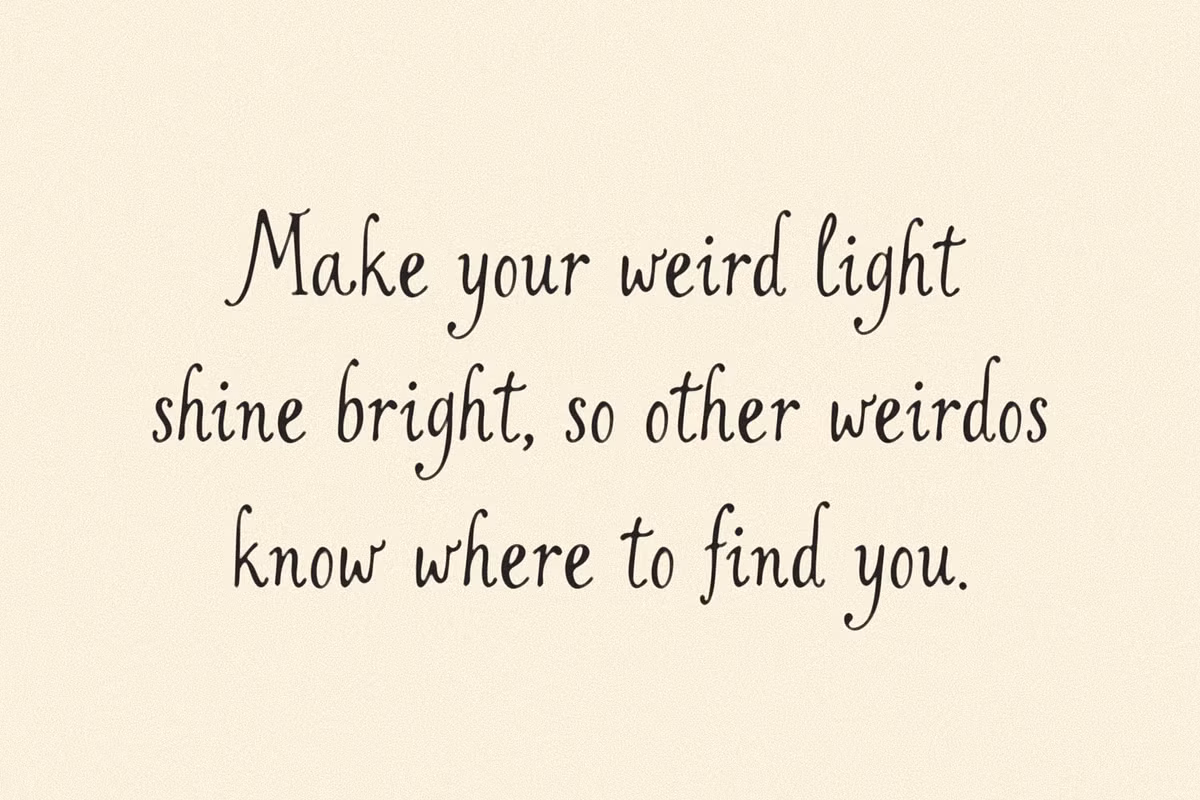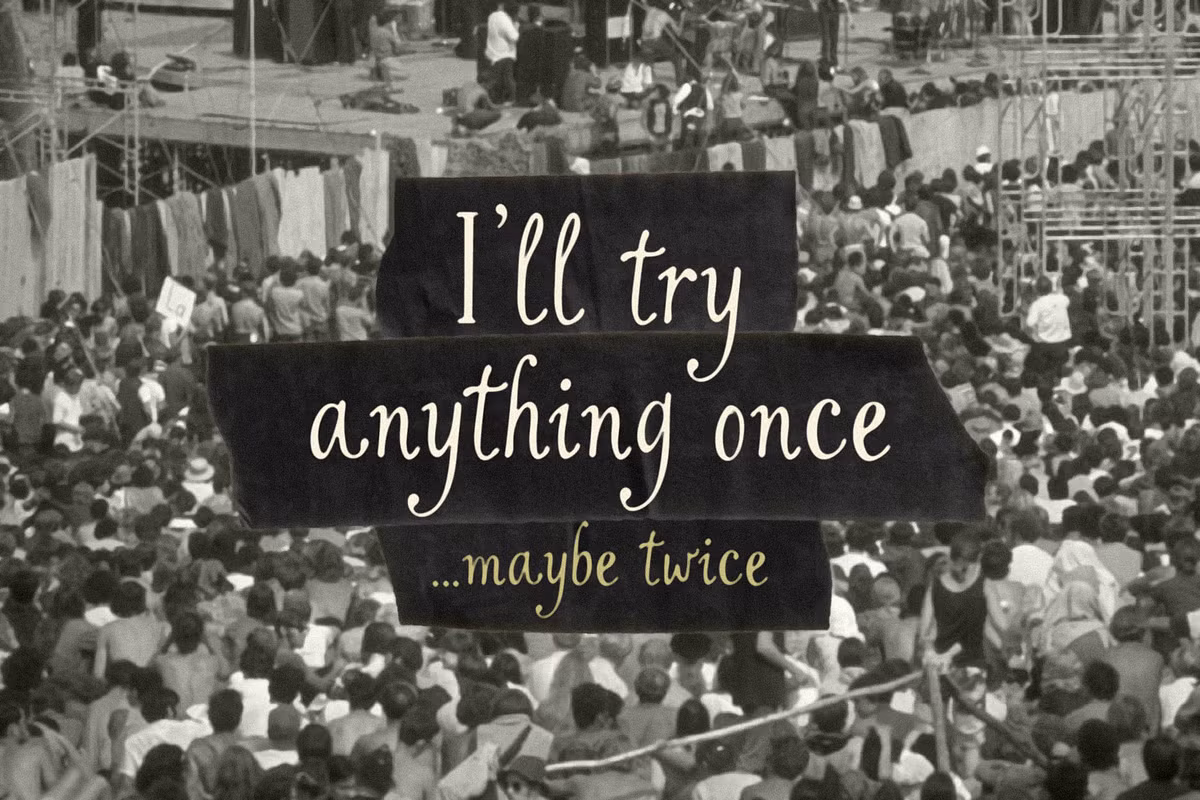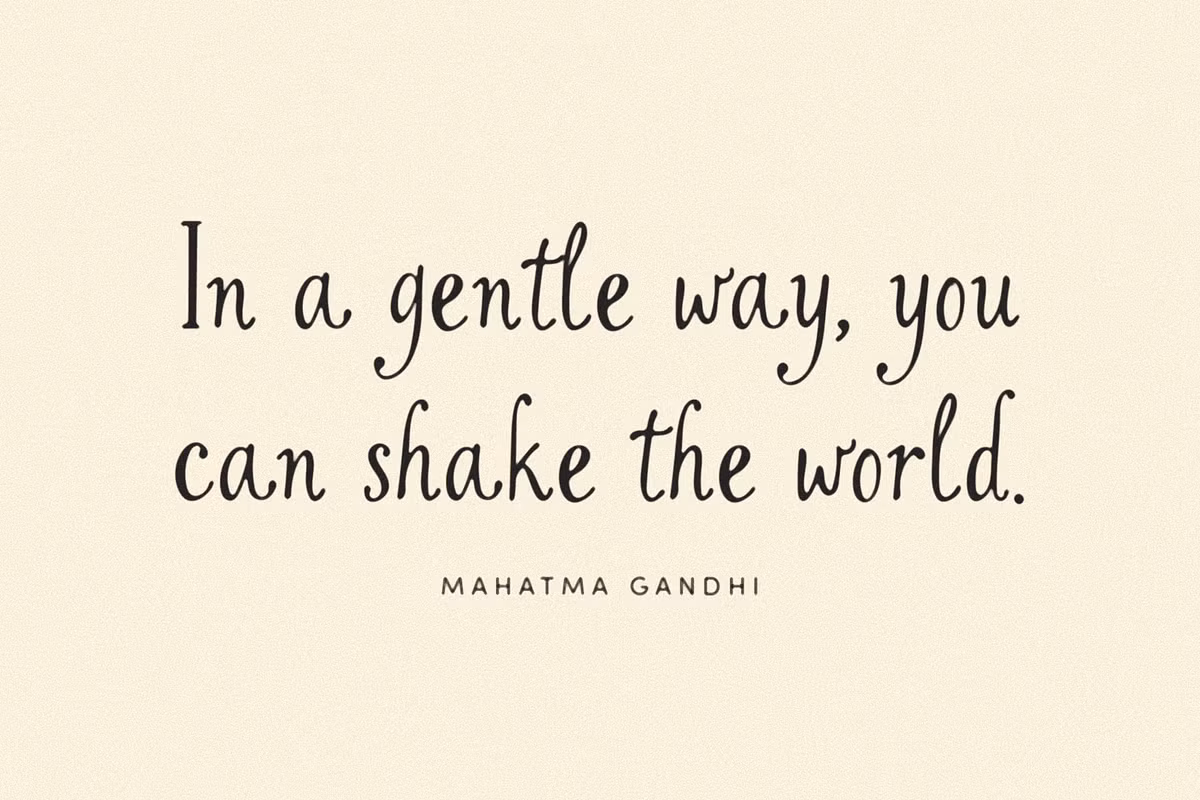
Westfalia: Whimsical Typeface for Creative Projects and Design
Introduction to Westfalia
Westfalia is a really cool font that’s all about being creative and having fun. It’s great for lots of different design projects. The people who made it, Bruised Goods, are from California and they got their ideas from all sorts of weird and wonderful things. What makes Westfalia special is its one-of-a-kind style and the fun characters it includes. If you want to add a bit of personality to your work, Westfalia is a fantastic choice. It’s perfect for anyone who wants to think outside the box and try something new.
With Westfalia, you can create designs that are really eye-catching and memorable. The team at Bruised Goods did a great job of making a font that’s both unique and easy to use. Whether you’re working on a big project or just something small, Westfalia can help you make it stand out.
Design Style of Westfalia
The Westfalia design style is really fun and artistic, with weird and wonderful shapes and lines that flow nicely. It’s a bit unconventional, which makes it perfect for designs that want to be different. So, if you’re making an album cover, an ad, or a logo, Westfalia’s playful vibe can add a sense of happiness and curiosity. Its quirky style can really make your design stand out and grab people’s attention.
With Westfalia, you can create something truly unique and eye-catching, whether you’re going for a fun and lively feel or a more subtle and intriguing one. Overall, Westfalia is a great choice for anyone who wants to add a bit of personality and whimsy to their design.
Westfalia has a lot to offer, especially when it comes to its glyphs. It’s got a huge range – 172 glyphs, to be exact. This includes all the usual stuff like uppercase and lowercase letters, numbers, symbols, and punctuation marks. Having so many options makes it easy for designers to get creative and make their layouts really pop. They can try out new things and move away from traditional typography, which is pretty exciting.
With Westfalia, the possibilities are endless, and designers can really push the limits of what’s possible with their designs. This font is really flexible, so it works well with lots of different styles – you can use it to create a retro feel or a modern look. It also mixes really well with other design elements, which is why it’s a popular choice for many creative projects.
Character Sets and Language Support
Westfalia has a big collection of characters that can be used to write in many languages, like Danish, English, French, and lots more. This means you can make designs that people who speak different languages can understand and enjoy, without losing the special touch that makes them look great. Whether you’re designing for people in Germany, Italy, Spain, or other countries, Westfalia’s got you covered.
You can create something that will appeal to a wide range of people, from Sweden to Switzerland, and from Portugal to Ireland. The result is a design that’s not only beautiful, but also accessible to a diverse audience.
Westfalia is a great choice for lots of different projects because it has a mix of uppercase and lowercase letters, numbers, and punctuation marks. This means you can use it to create all sorts of things, like menus, invitations, or merchandise, and you’ll have everything you need to make your message stand out. With Westfalia, you can add a personal touch to your designs and make them more interesting and effective.
Whether you’re working on a small project or a big one, Westfalia has all the characters you need to get your point across and make a lasting impression. The font’s fun and easy-to-read style makes sure your words are clear, even when they’re small. This mix of being playful and useful is a big reason why designers from many areas like to use Westfalia.
Use Cases for Westfalia
The potential applications for Westfalia are vast, making it suitable for a wide range of creative projects. Here are some popular use cases:
- Advertisements: Use Westfalia to create eye-catching ads that capture attention and convey a fun message.
- Album Covers: Its unique design can add an artistic flair to music albums, perfectly complementing various genres.
- Apparel: Westfalia is a fantastic choice for t-shirt designs, adding a whimsical touch that appeals to a younger audience.
- Cards and Invitations: Whether for weddings, parties, or business events, this font can enhance the appeal of any invitation or greeting card.
- Logos and Branding: Incorporating Westfalia into your branding can create a memorable identity that resonates with your target audience.
- Packaging: Use this typeface on product packaging to stand out on the shelves and attract customers.
- Web Design: Westfalia’s versatility makes it ideal for websites looking to create a fun and engaging user experience.
Incorporating Westfalia into your design projects can truly elevate your work, making it memorable and engaging for your audience.